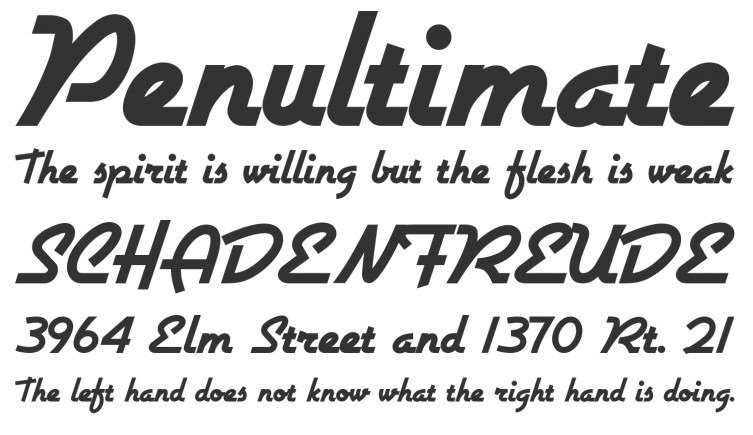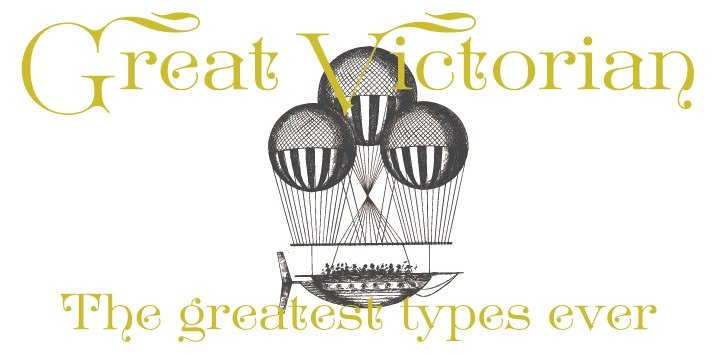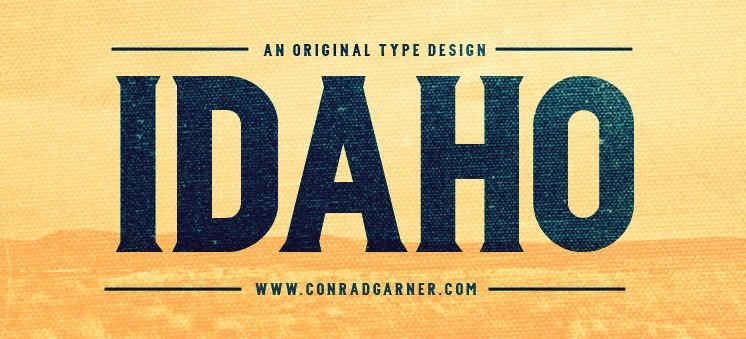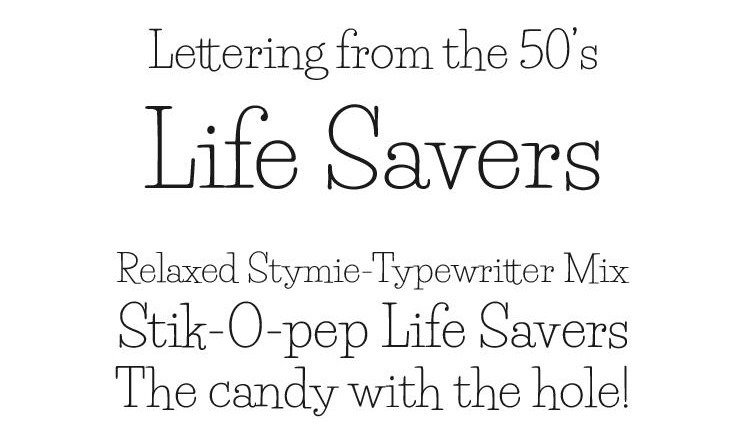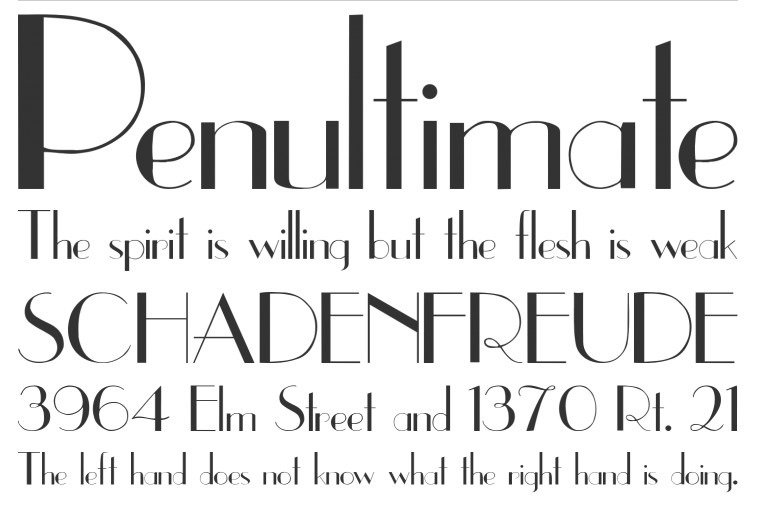
Idaho – MORE INFO
This font is inspired from the official typography of old Idaho. It features basic fonts, lettering and special characters in bold form. This is deemed as one of the most utilized fonts in Idaho during 19th century.
Life Savers – MORE INFO
This typography is inspired from the 50s candies’ advertisement, ‘Life Savers’. At this time, most of the advertising agencies are hiring lettering artists when creating ads in posters. All of the texts were beautifully hand drawn.
Great Victorian – MORE INFO
Great Victorian is a popular typography commonly surfaced in Europe. Basically, the fonts convey elegance and style, keeping its simplicity and stance. It is perfect for websites holding a Victorian era inspired theme.
Wooden Nickel Back – MORE INFO
Wooden Nickel Back is a classic typography that features bold lettering and special characters. This type of font is quite familiar back in 19th century, and it is perfect for websites with vintage themes.
Upper East Side – MORE INFO
Upper East Side is another retro-inspired vintage font, which is prominent during 1980s. It features upper and lower cases, as well as special characters. It is perfect for sites with retro themes.
Airstream – MORE INFO
Airstream is one of the cursive free vintage fonts that present bold letterings and special characters perfect for typography logos and taglines. It creates additional appeal to websites with wordy contents.